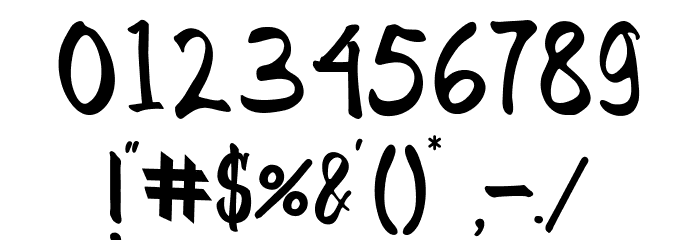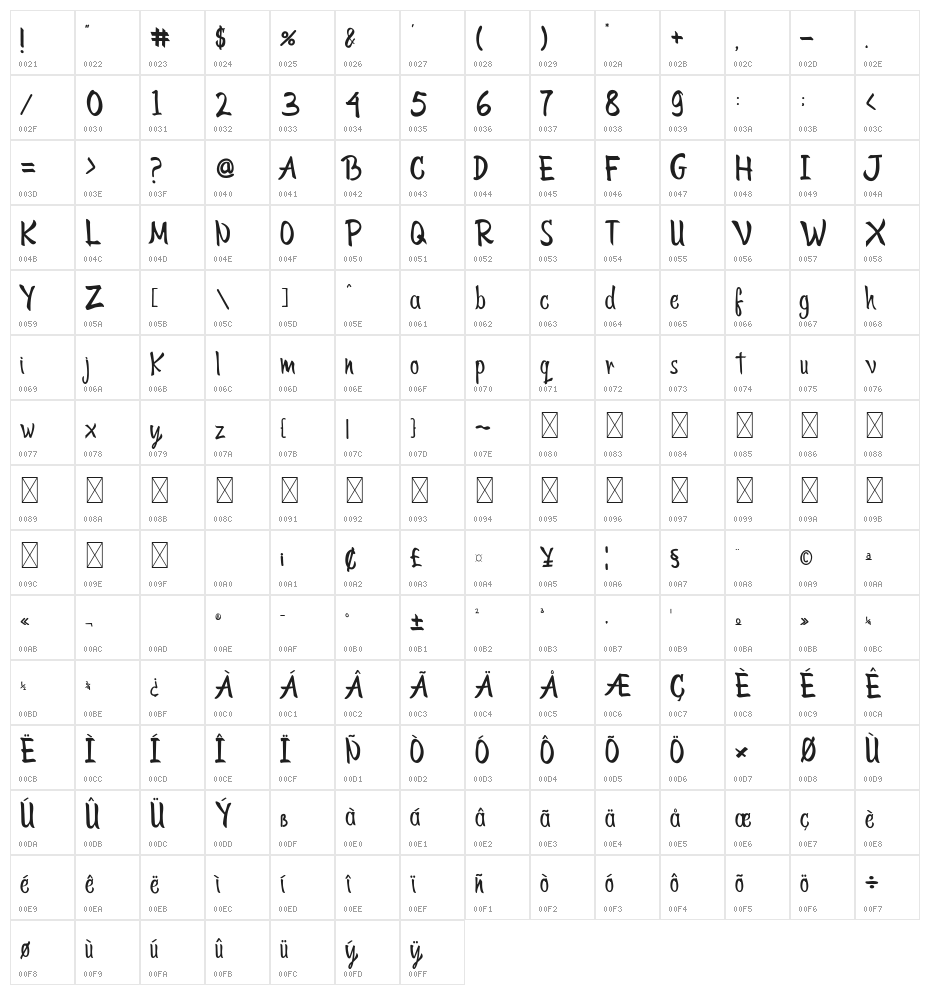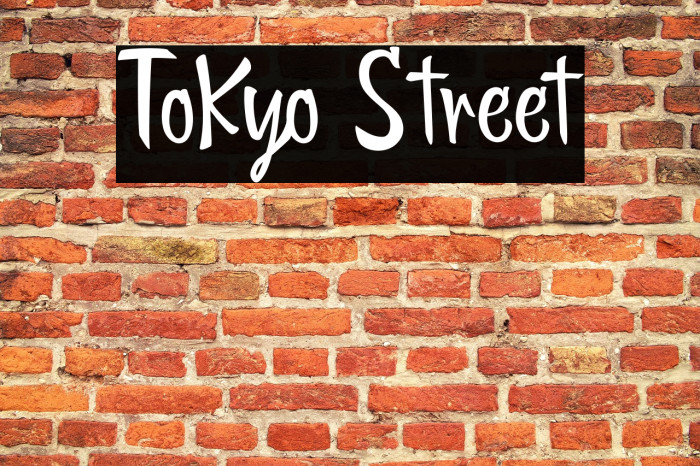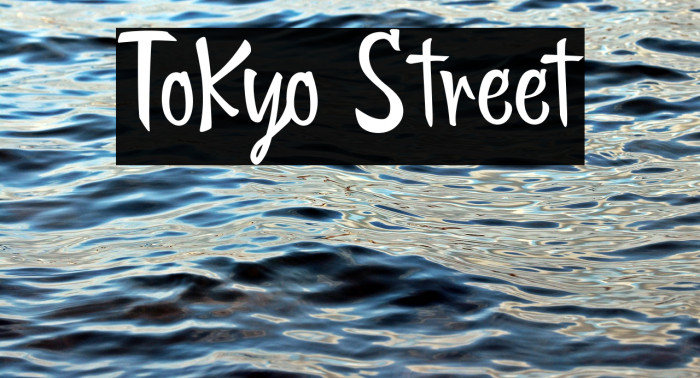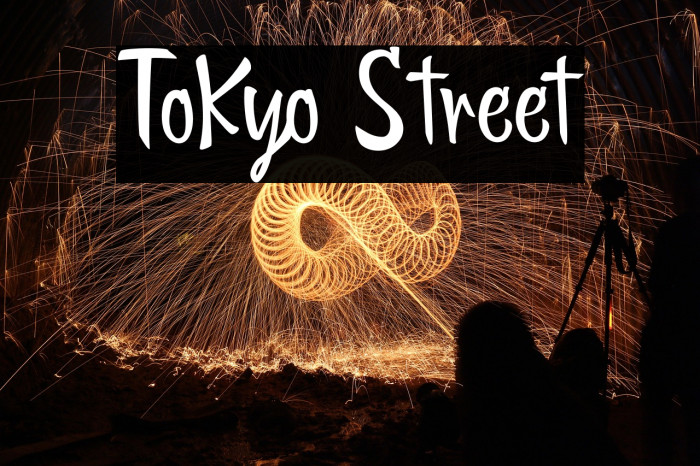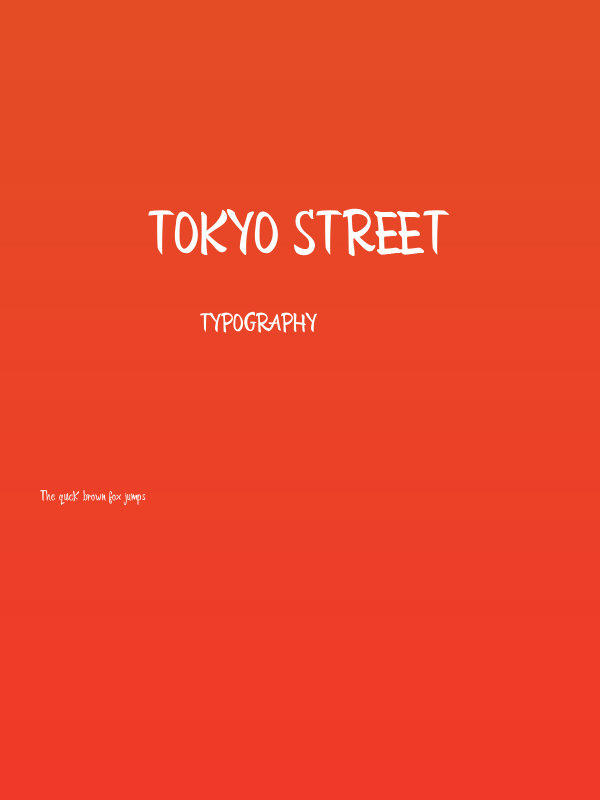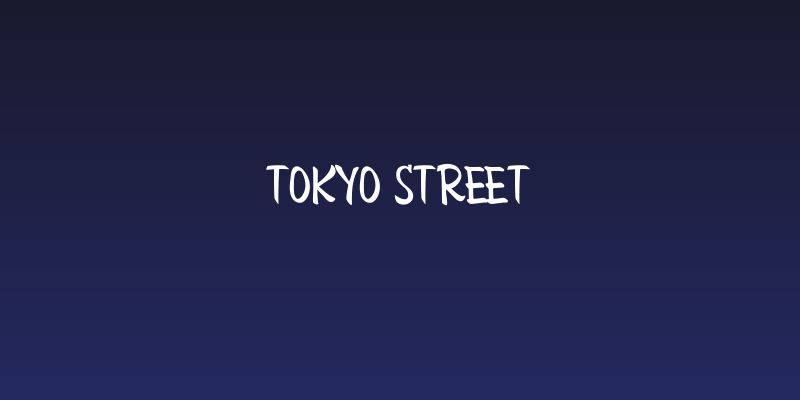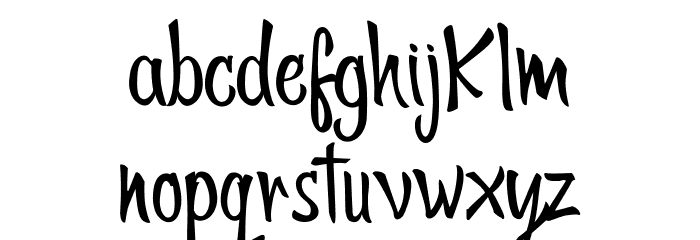
Tokyo Street Font
Tokyo Street Description
This font exudes a playful and energetic vibe, characterized by its bold and slightly irregular strokes. The letters have a hand-drawn appearance, with a dynamic flow that suggests movement and spontaneity. The uppercase letters stand tall with a slight slant, while the lowercase letters maintain a consistent style, adding to the overall casual feel. Numbers and special characters are crafted with the same lively touch, making them blend seamlessly with the alphabet. The font's unique style makes it stand out, perfect for projects that require a personal and informal touch.
| Proposed Projects | Ideal for street art designs, casual branding, children's book covers, and creative posters. |